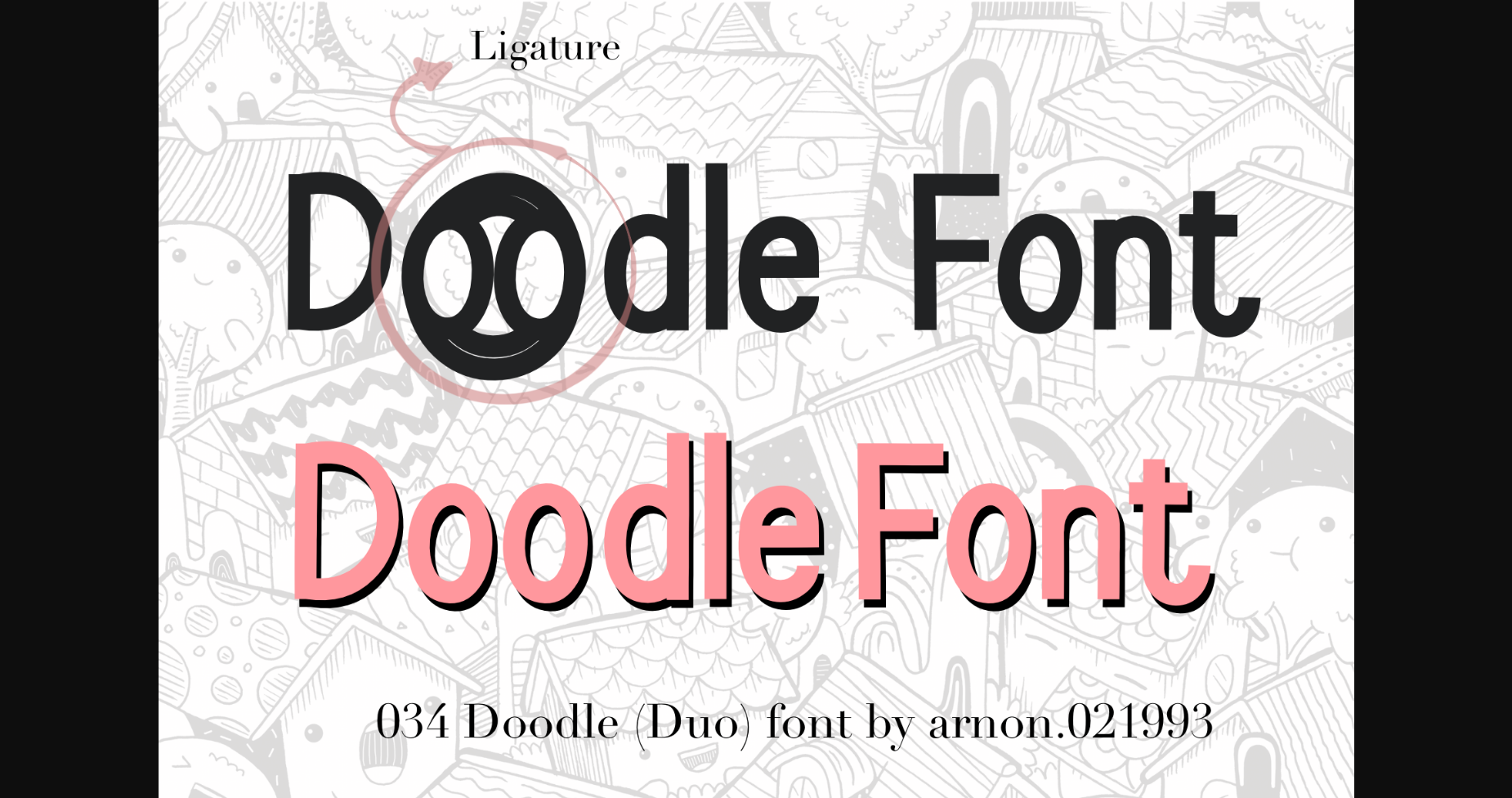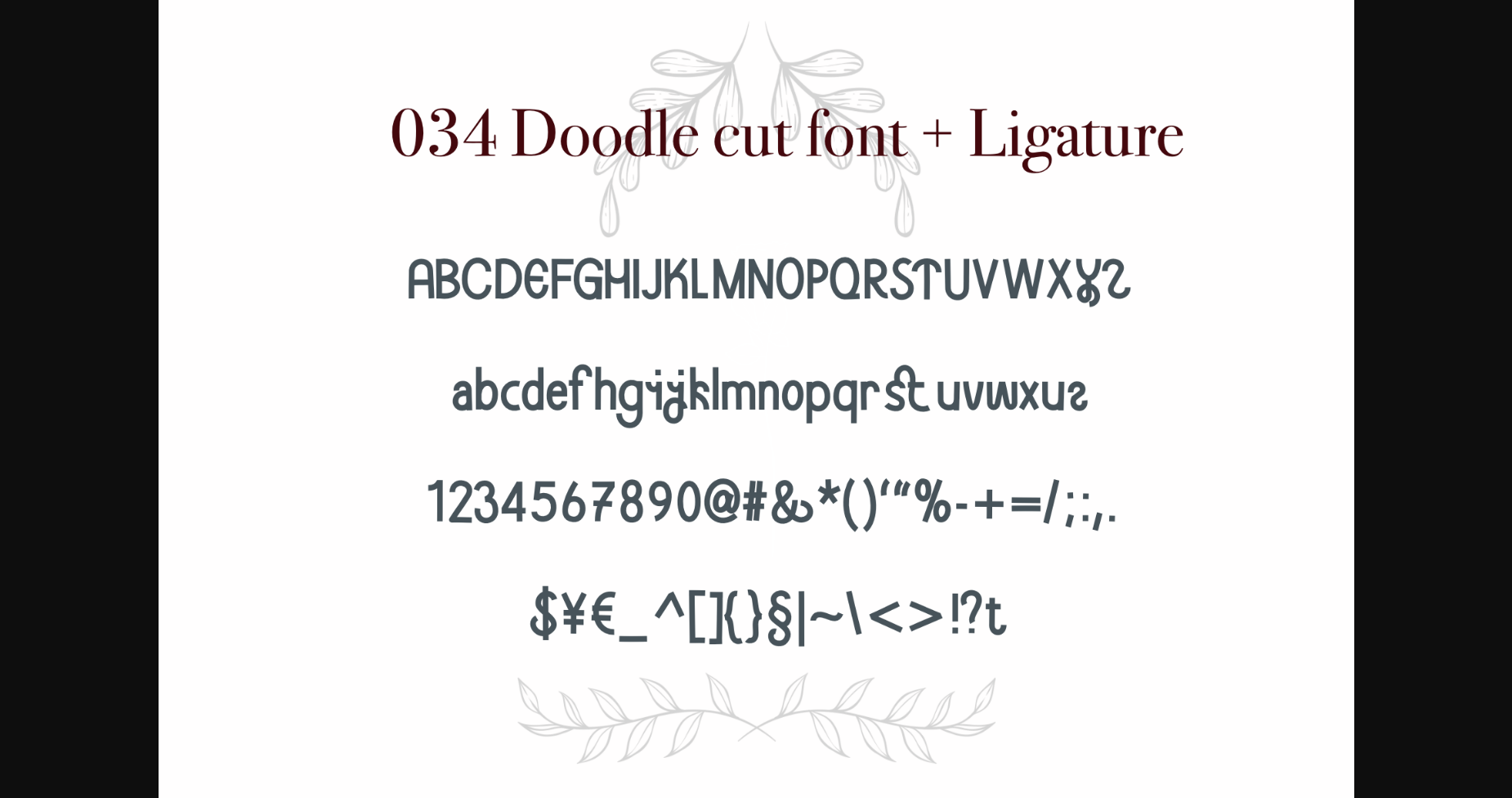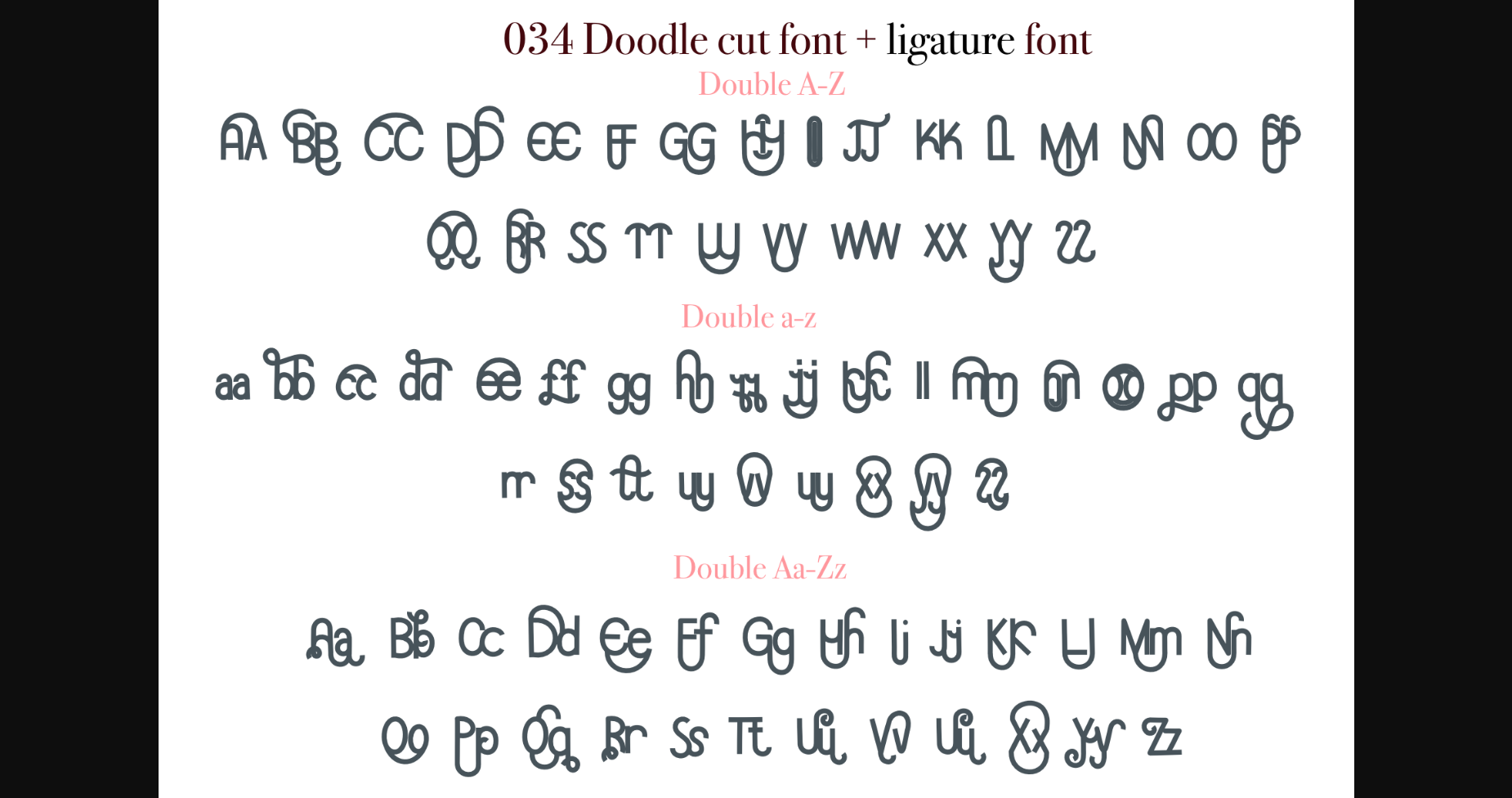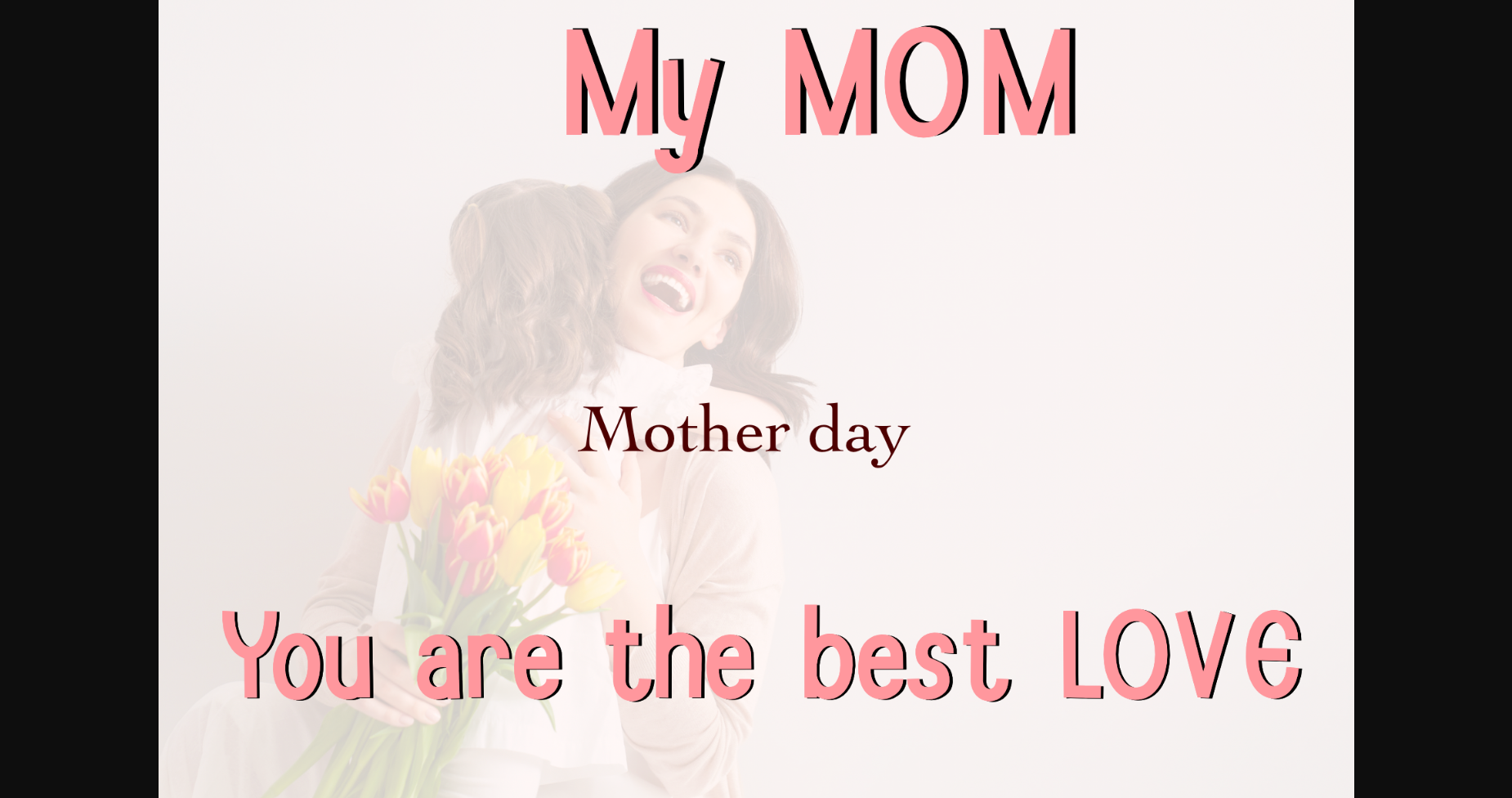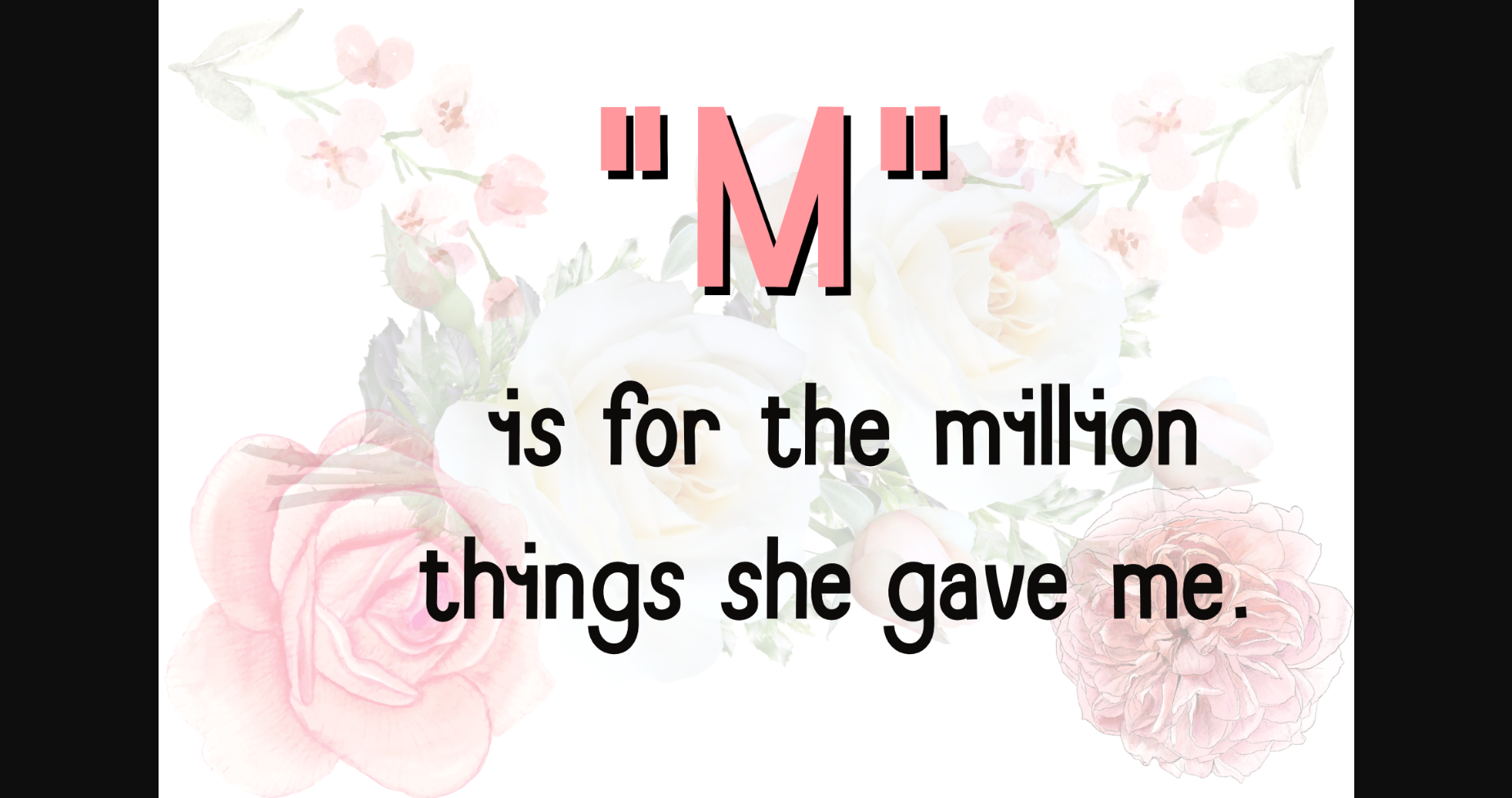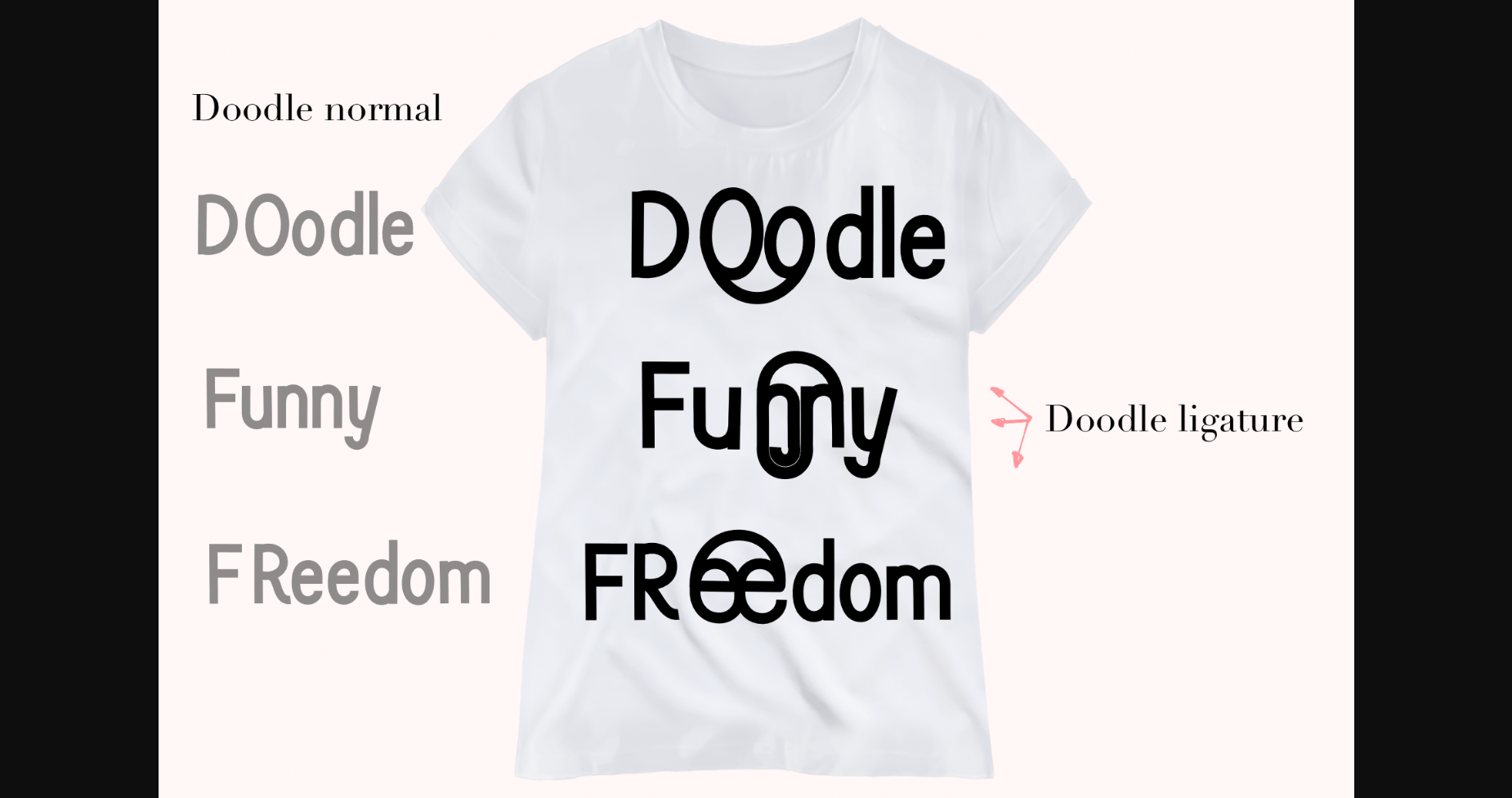
Doodle Font
About Doodle Font
Doodle is a Sans Serif and modern font combined with a sweet touch and beautifully curved combined letters, using a touch of soft curves so that it is pleasing to the eye. This font is PUA encoded which means you can access all of the amazing glyphs and ligatures with ease!